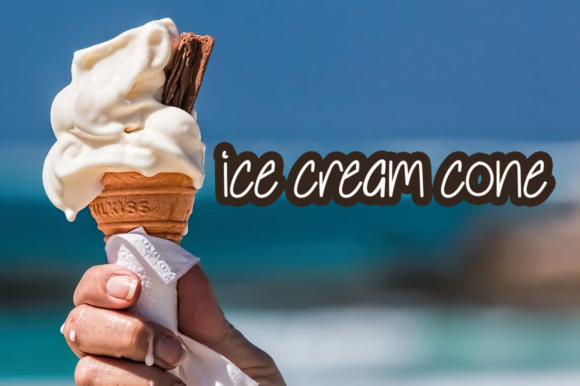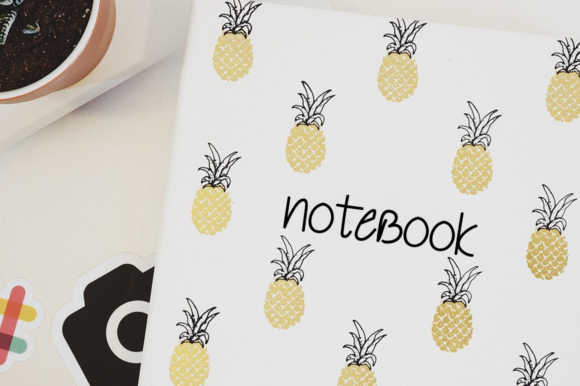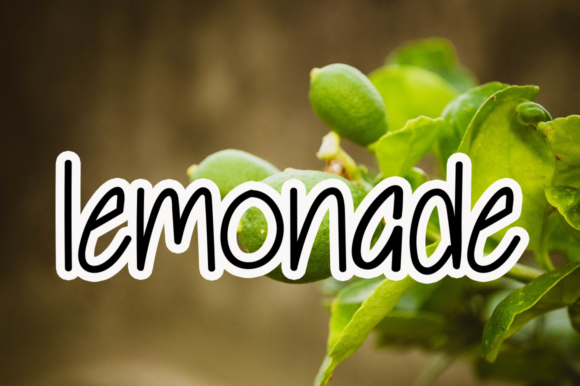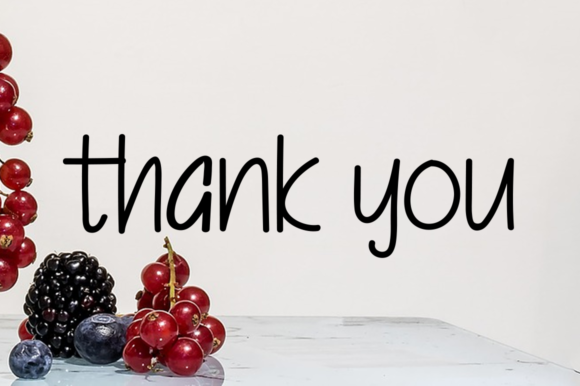
Introduction to Pineapple Juice Font
Have you ever been working on a creative project, pouring over design concepts, and then, out of the blue, a font comes along that perfectly captures the essence of your vision? For designers, this moment is like hitting the jackpot. And for many, that moment came when they discovered the Pineapple Juice Font.
This beautiful, handwritten font is more than just a design resource – it’s a game-changer. With its natural, unique style, it adds a touch of warmth and personality to any design, making it incredibly versatile and fitting for a wide range of creative projects.
Whether you’re working on a design project that requires a high-quality, free download or simply want to add a fresh touch to your branding materials, the Pineapple Juice Font is an excellent choice. Plus, with a transparent background, it’s easy to incorporate into any design without worrying about background clutter.
Pineapple Juice Font
• High-quality design resource perfect for creative projects
• Unique, hand-drawn design with a transparent background for versatility
• Includes a full character set, including uppercase and lowercase letters, numbers, and symbols
• Suitable for various design applications, including logos, typography, and branding materials
Honest Review: Pineapple Juice Font
What works well: ✨ The font is incredibly versatile, making it perfect for a wide range of creative projects. The pineapple-inspired design adds a fun touch, and the transparent background allows for easy layering and customization. I love how the font’s quirky vibe can be used for anything from food blogs to kids’ party invitations.
What doesn’t: ⚠️ The font could benefit from a more extensive character set. Currently, it only includes uppercase and lowercase letters, with a limited selection of punctuation marks. This might limit its usability for longer texts or formal designs.
Overall impression: I’m impressed by the Pineapple Juice Font’s unique design and high quality. While it may have some limitations, its versatility and fun factor make it a great addition to any designer’s toolkit. I’d recommend it for creative projects where a playful touch is needed.
• Unique design
• High-quality font
• Transparent background
Tips for Getting the Most Out of Pineapple Juice Font
To get the most out of the Pineapple Juice Font, use it in combination with other design elements to create a unique and eye-catching design. Experiment with different font sizes, colors, and alignments to achieve the desired look.
The Pineapple Juice Font is suitable for a variety of creative projects, including logos, business cards, social media graphics, and more. Its unique design makes it an ideal choice for designers looking to add a touch of creativity to their projects.